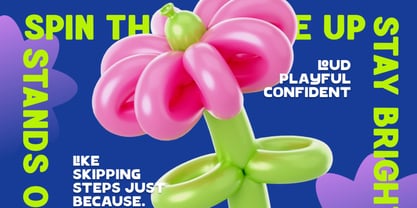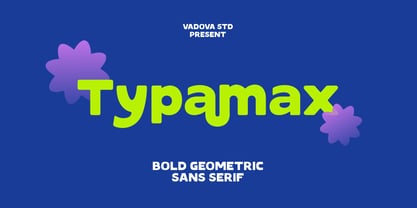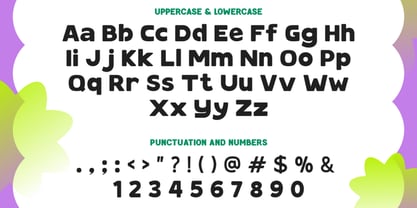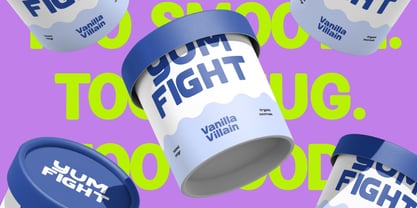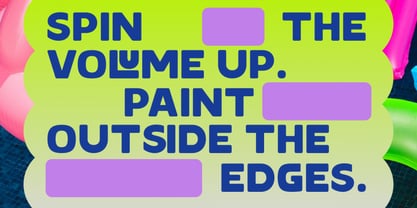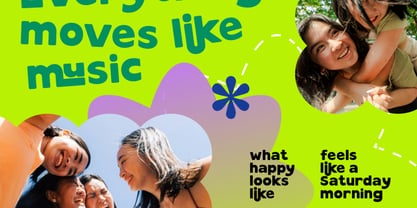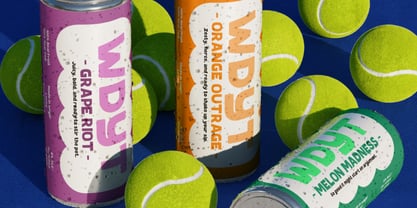
Typamax
by Vadova Std
The Typamax Font Family was designed by and published by Vadova Std. Typamax contains 1 styles. More about this family
Typamax is a bold geometric sans serif font designed to be expressive, playful, and modern. The typeface features rounded letterforms, balanced heavy proportions, and a friendly character that remains clean and highly readable. Typamax includes uppercase and lowercase letters, numbers, and basic punctuation, making it suitable for a wide range of creative design projects. This font is intended primarily for display use such as headlines, posters, branding, and digital content rather than long-form text. Its design pairs especially well with bright colors, dynamic layouts, and fun, energetic visuals. Typamax is suitable for graphic designers, creative brands, content creators, startups, and digital agencies working on both personal and commercial projects. It is ideal for designs that aim to convey a fun, modern, friendly, and energetic visual style, whether for print or digital use.